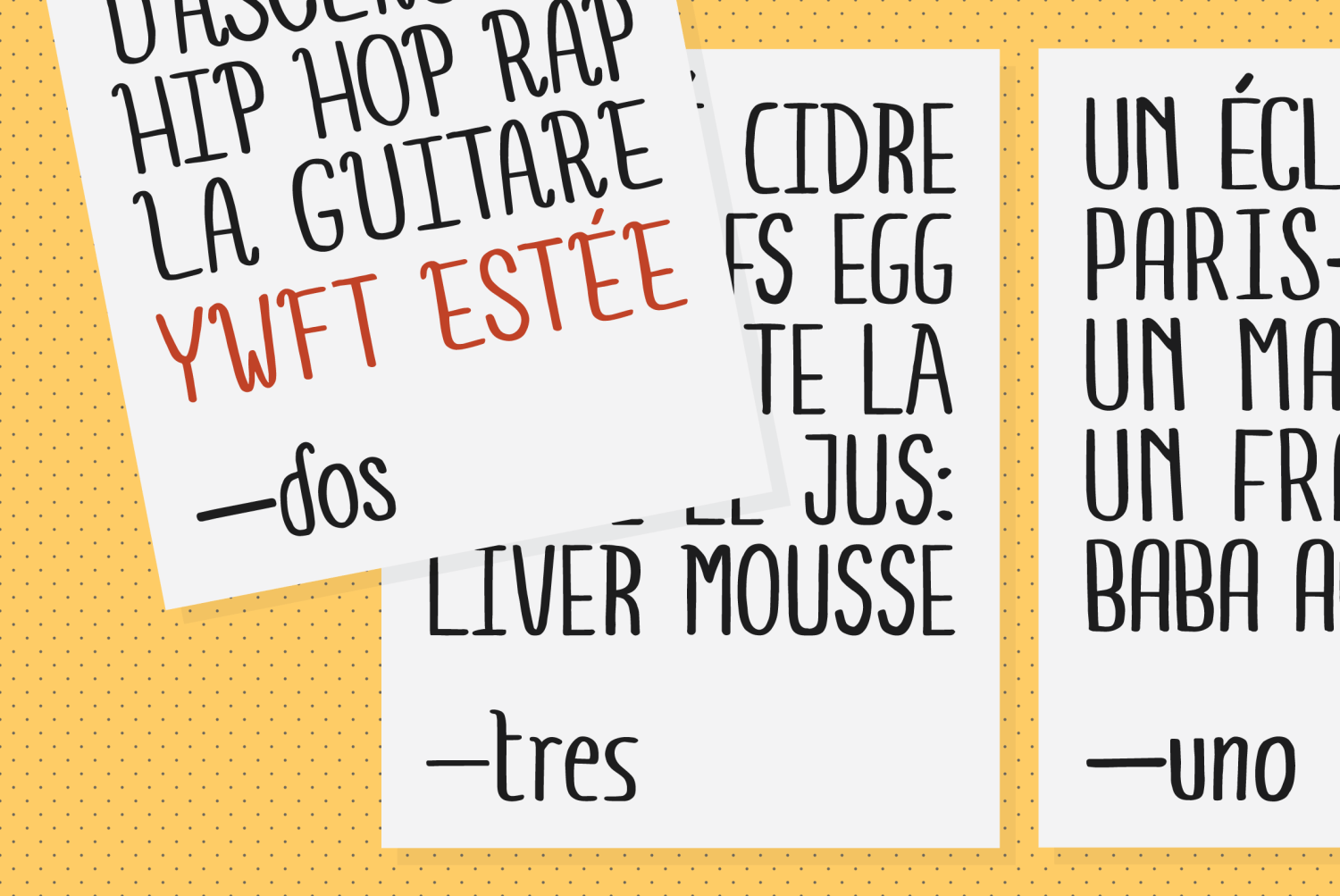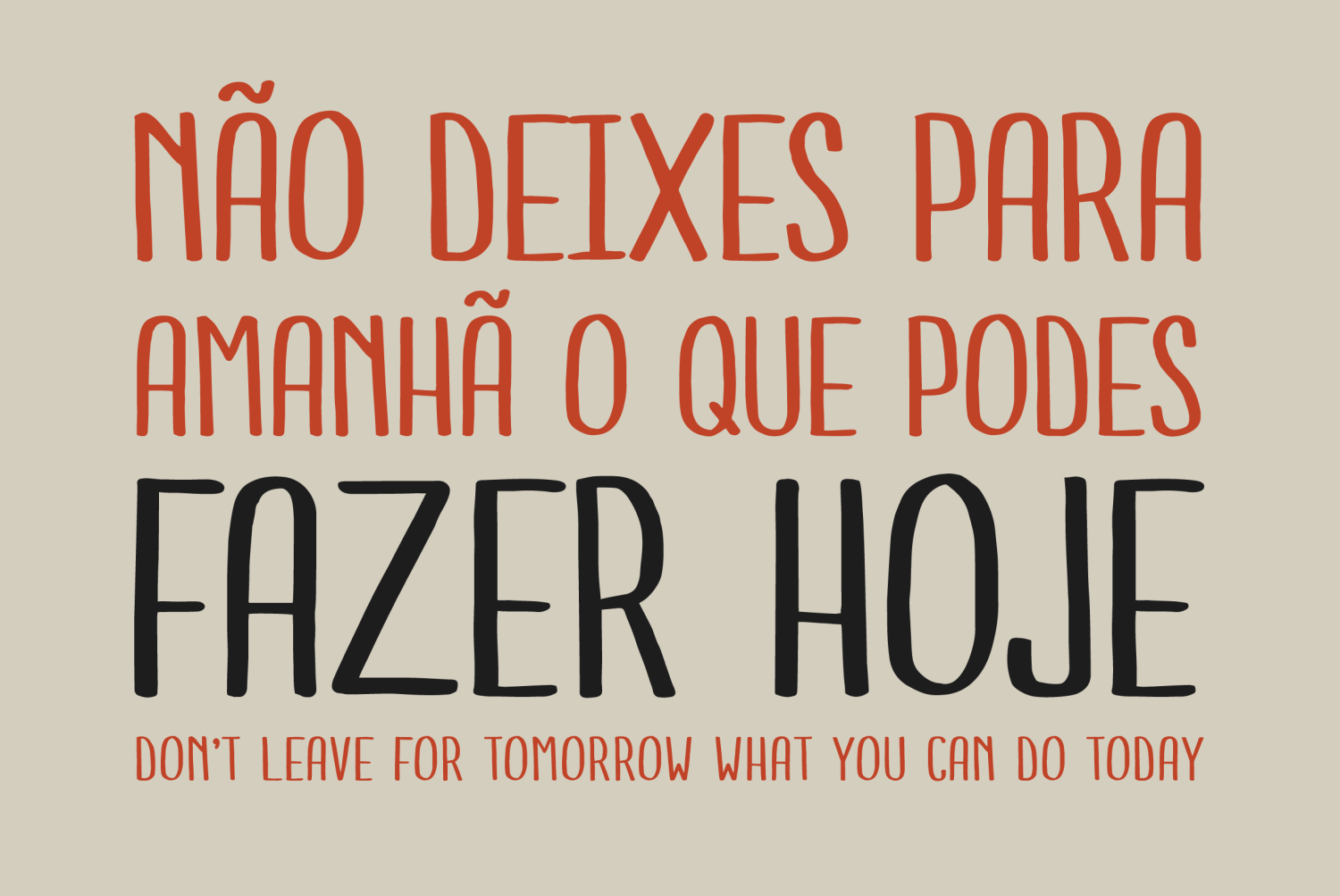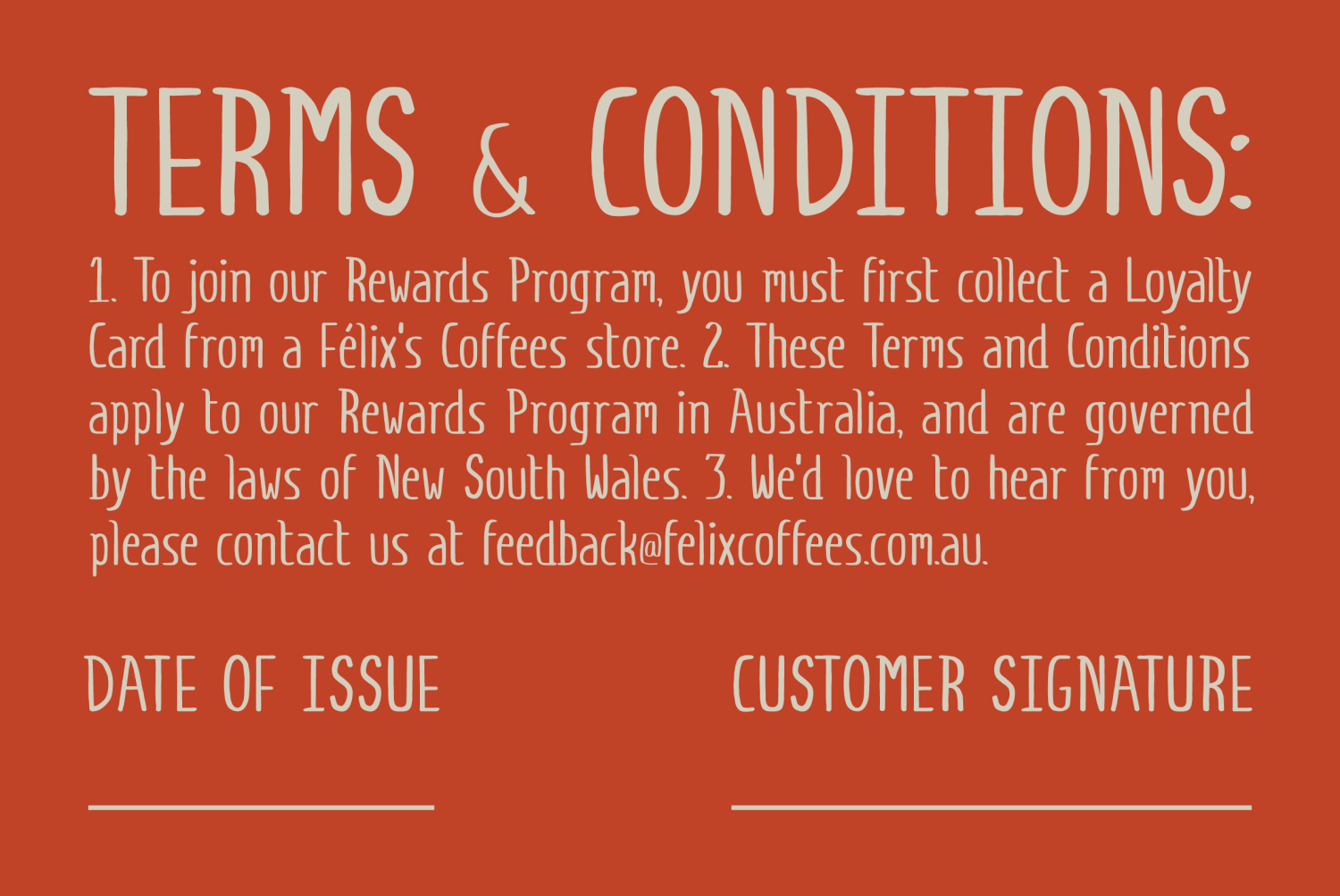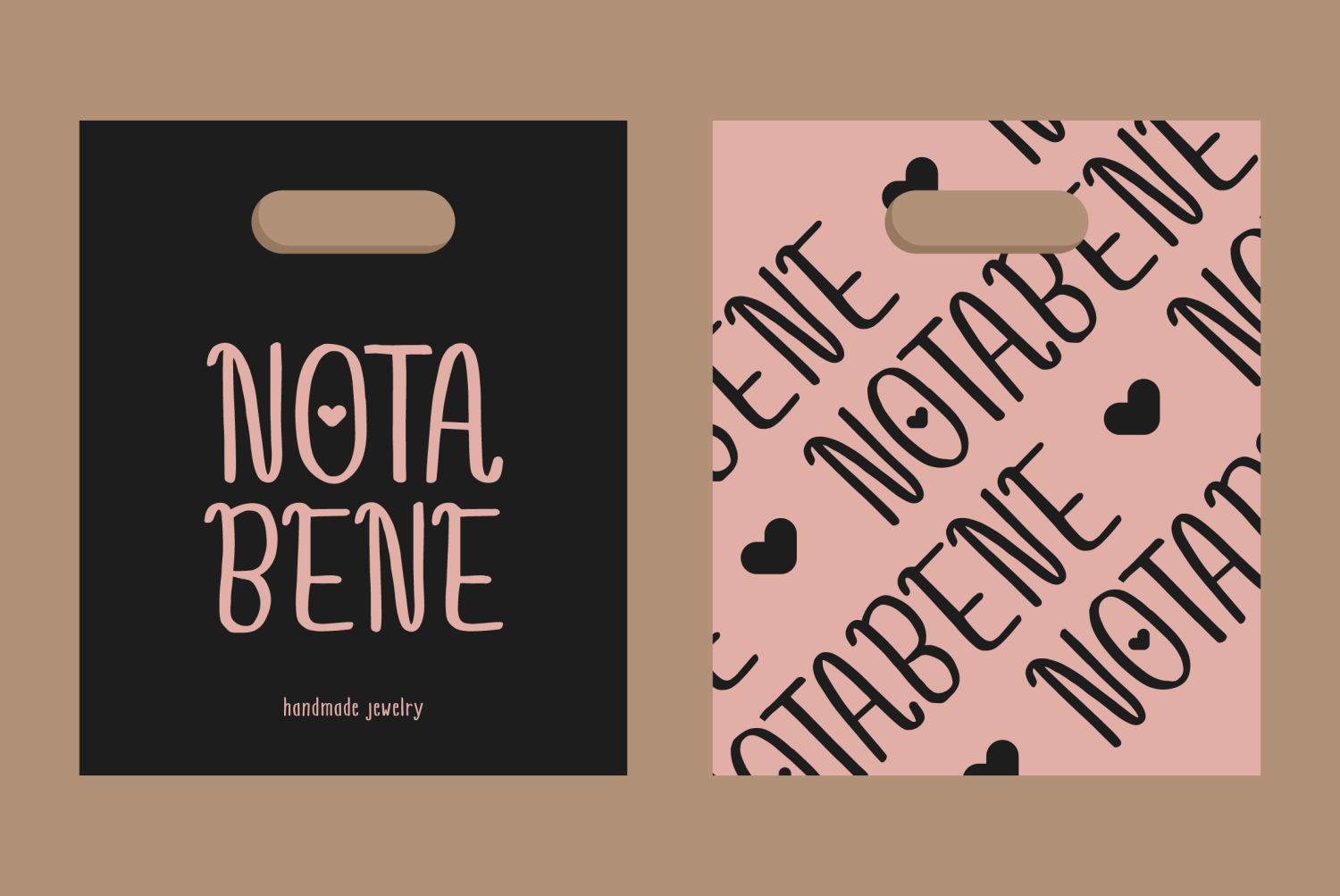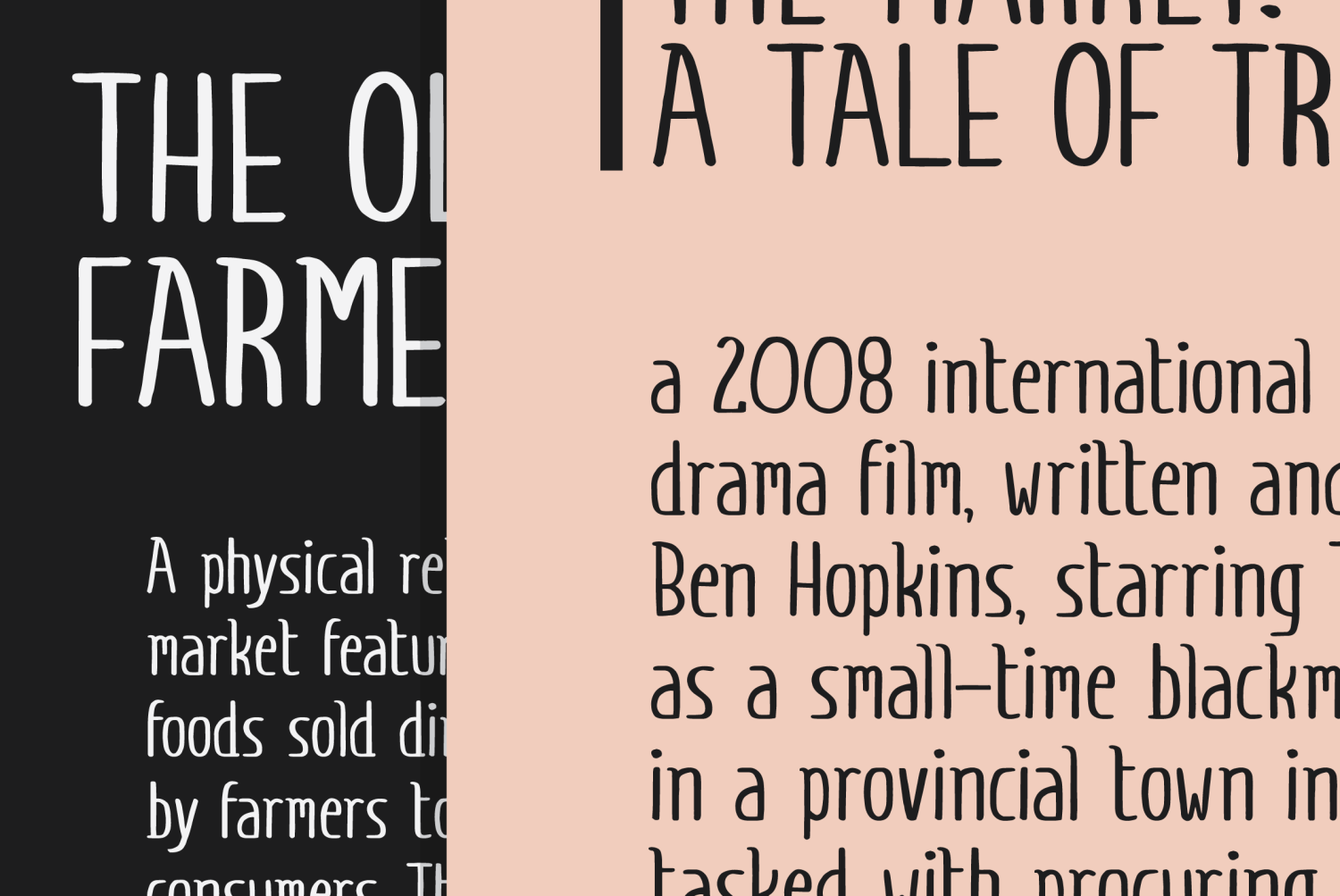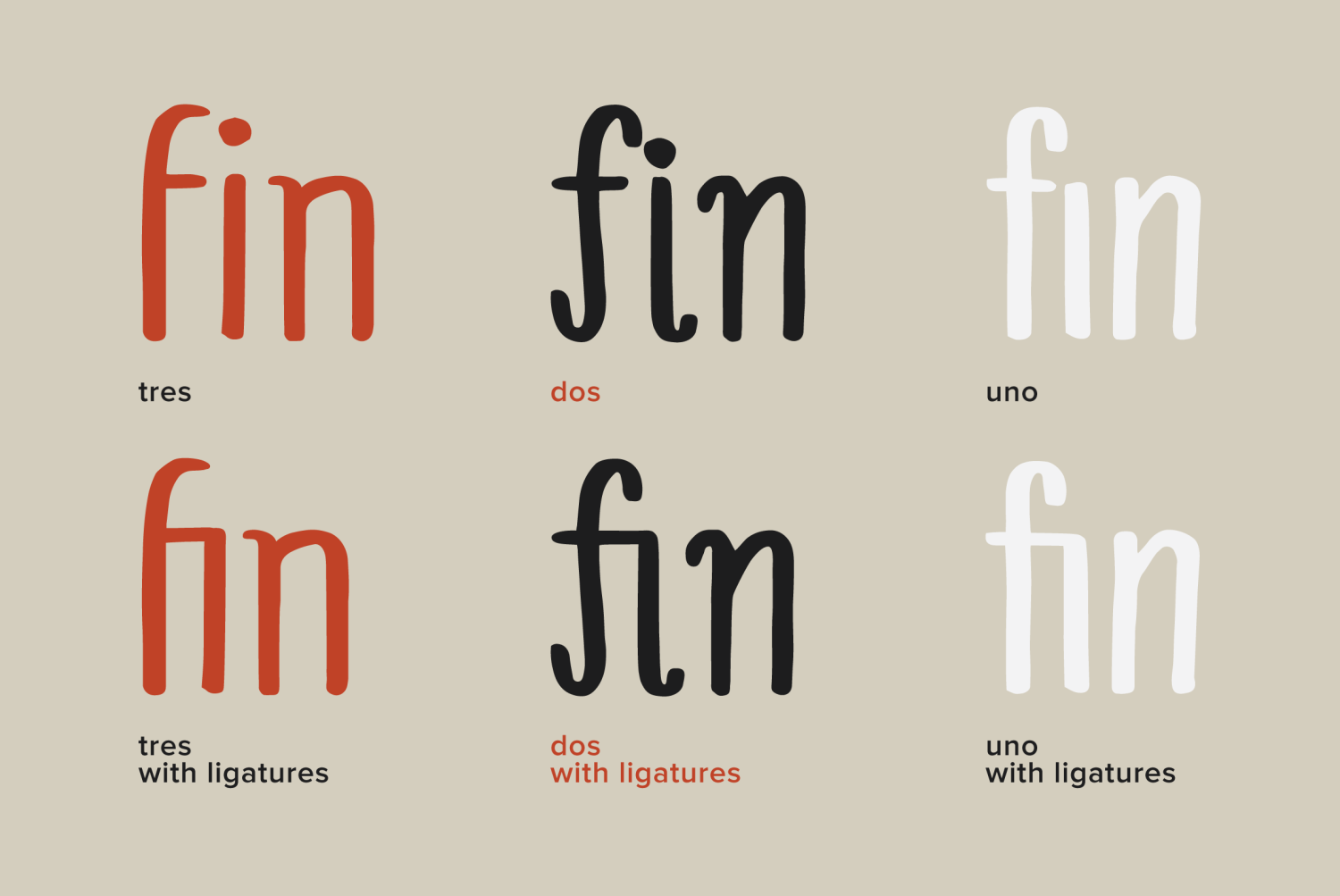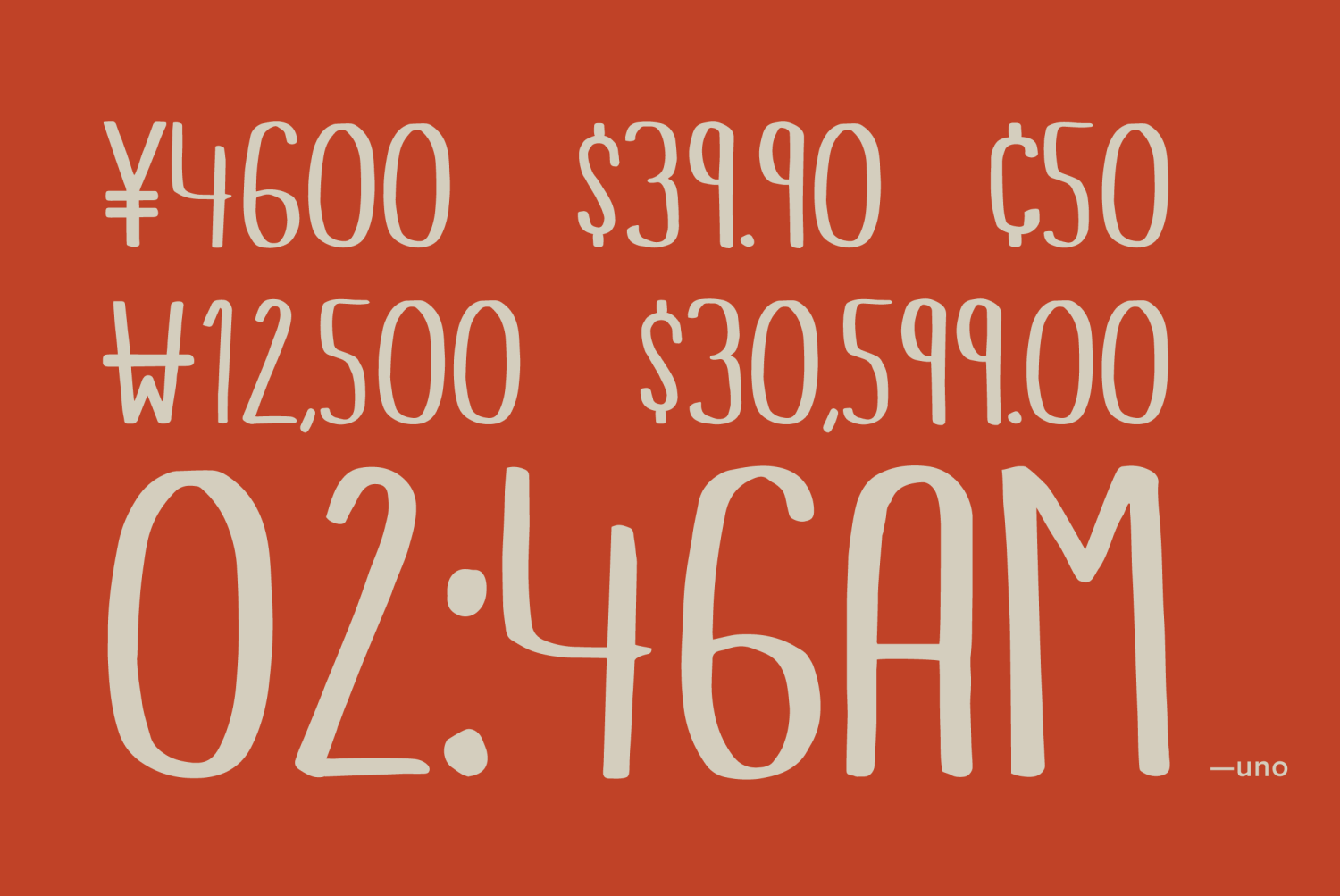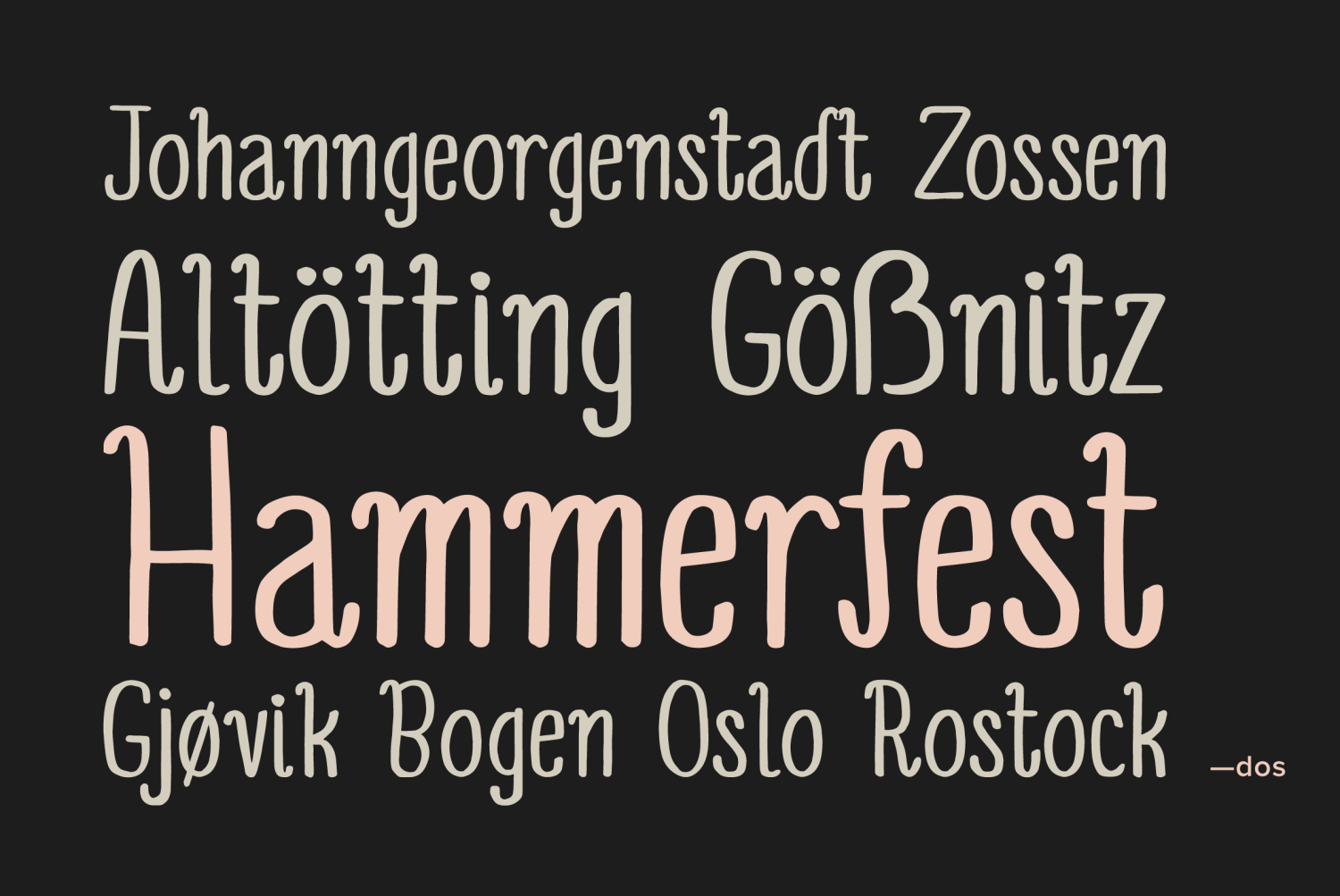
YWFT Estée
Font Family by YouWorkForThem
Inspired by the beauty industry, YouWorkForThem presents Estee, an homage to modern femininity.
Sweet details combined with strong architecture, YWFT Estee takes an organic, shabby chic approach to its design. Estee evokes the qualities we most admire in the women we know and love, balancing their playfulness, their softness, and their unwavering strength and resilience through hand-drawn letterforms.
Available in three styles, YWFT Estee is well suited for fashion advertising, logos, product packaging, branding, labels, and displays that need a casual, feminine touch. Its organic nature makes it an excellent choice for the food industry, particularly local farm products and homegrown produce. Estee's easygoing demeanor would also find itself quite at home in greeting cards, social media imagery, and even children's books.